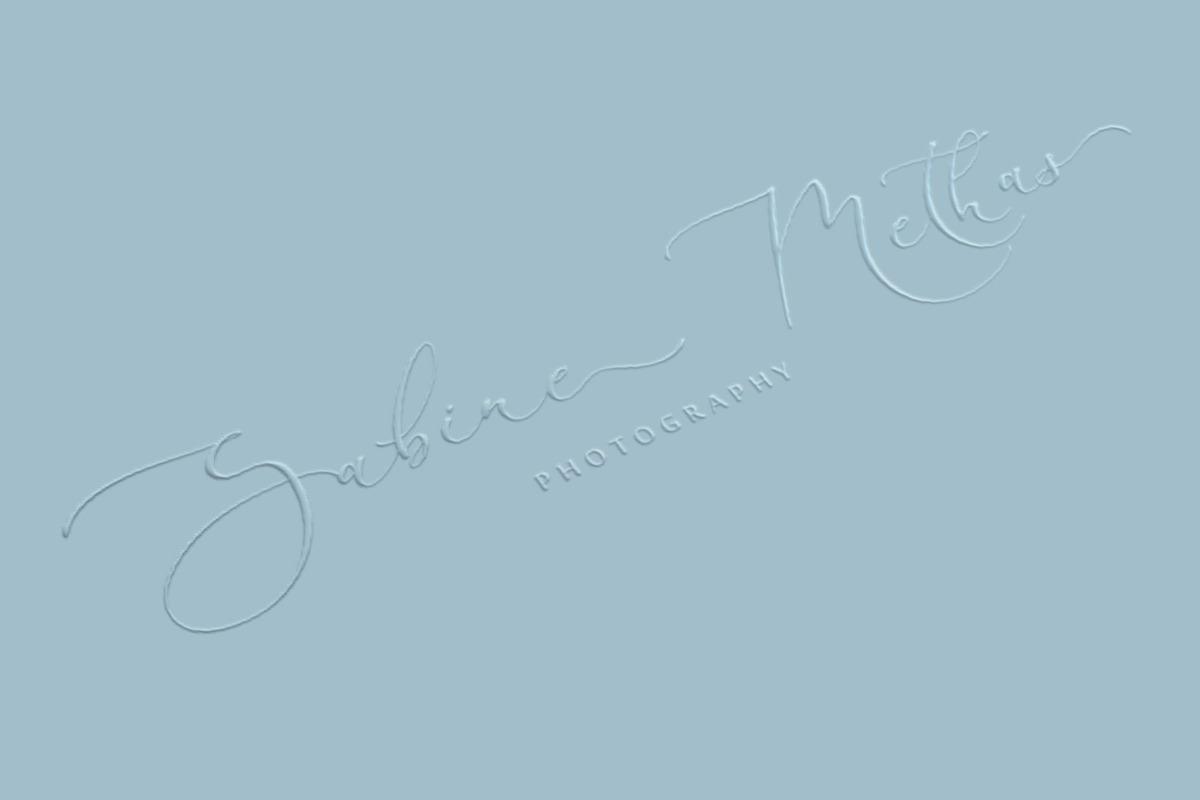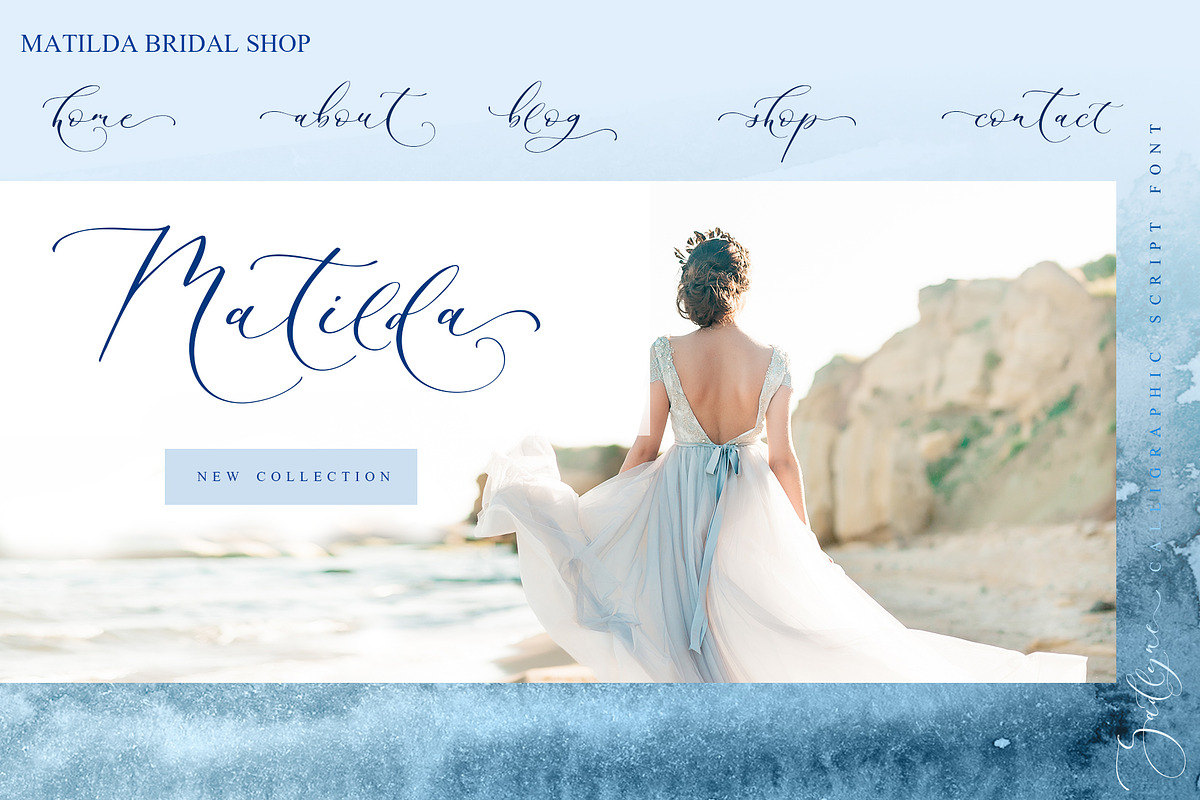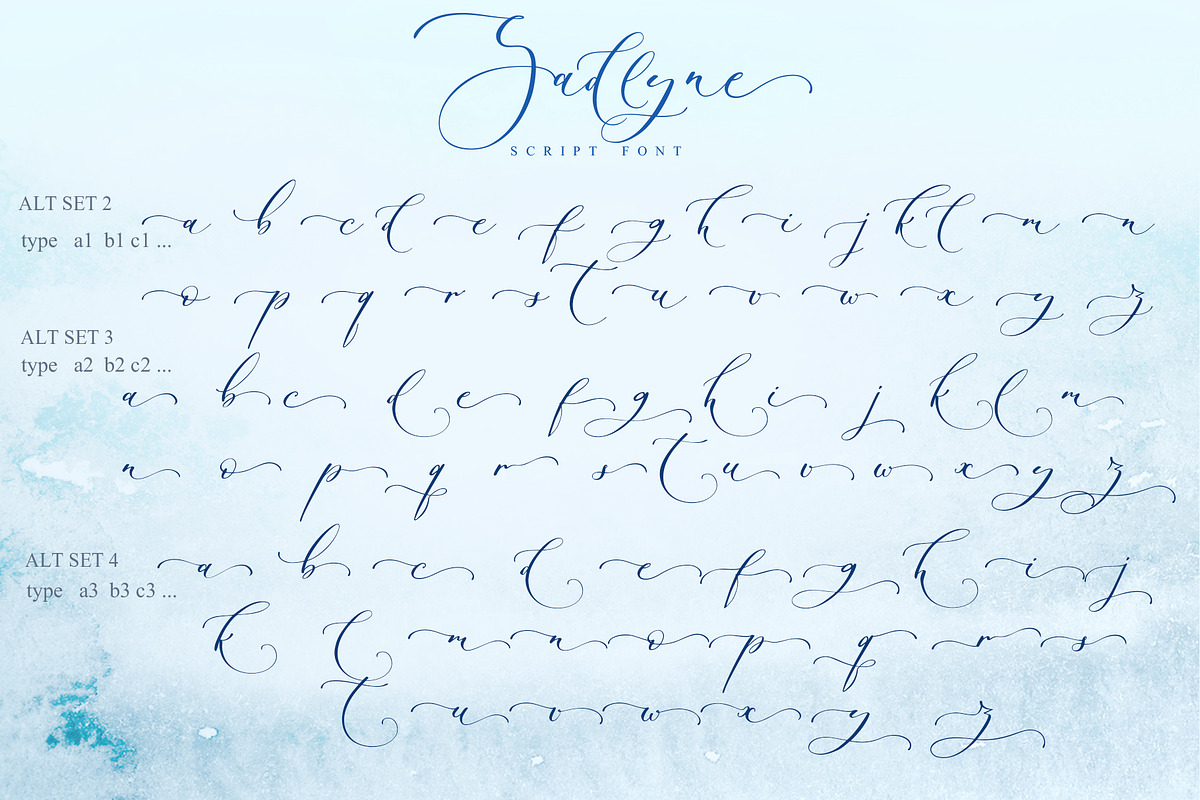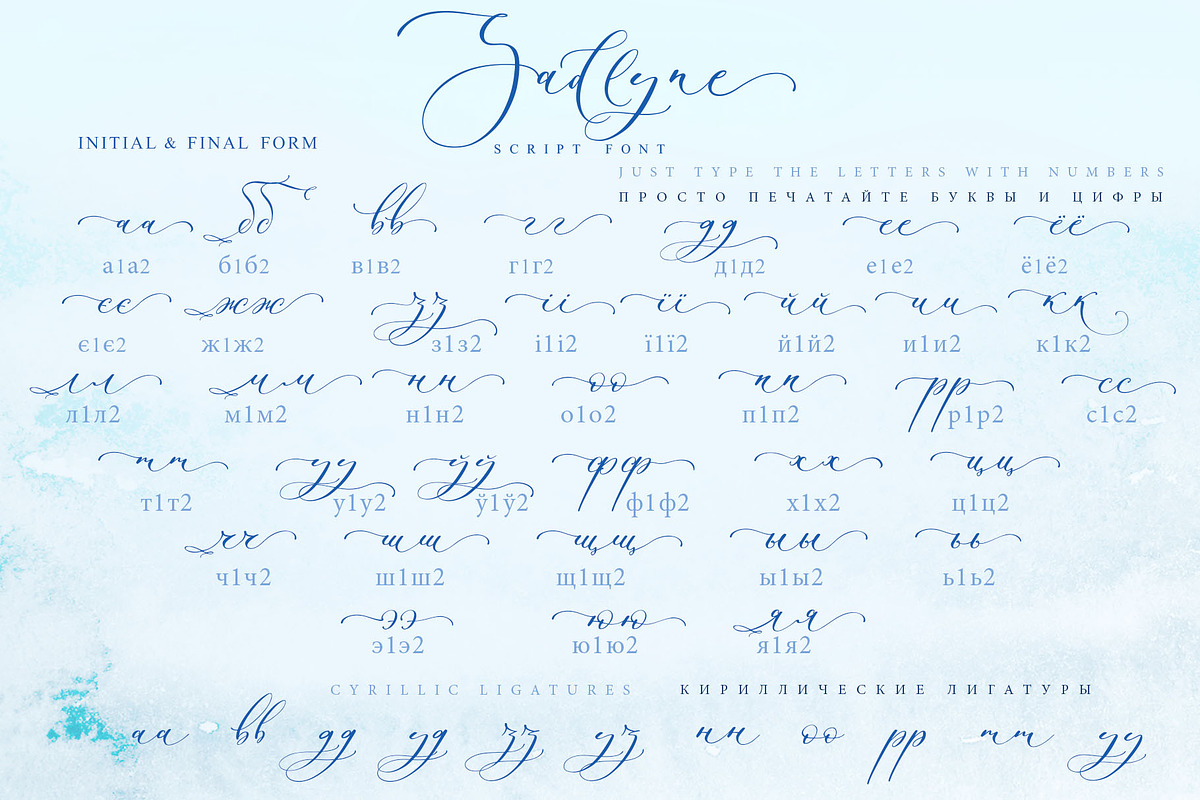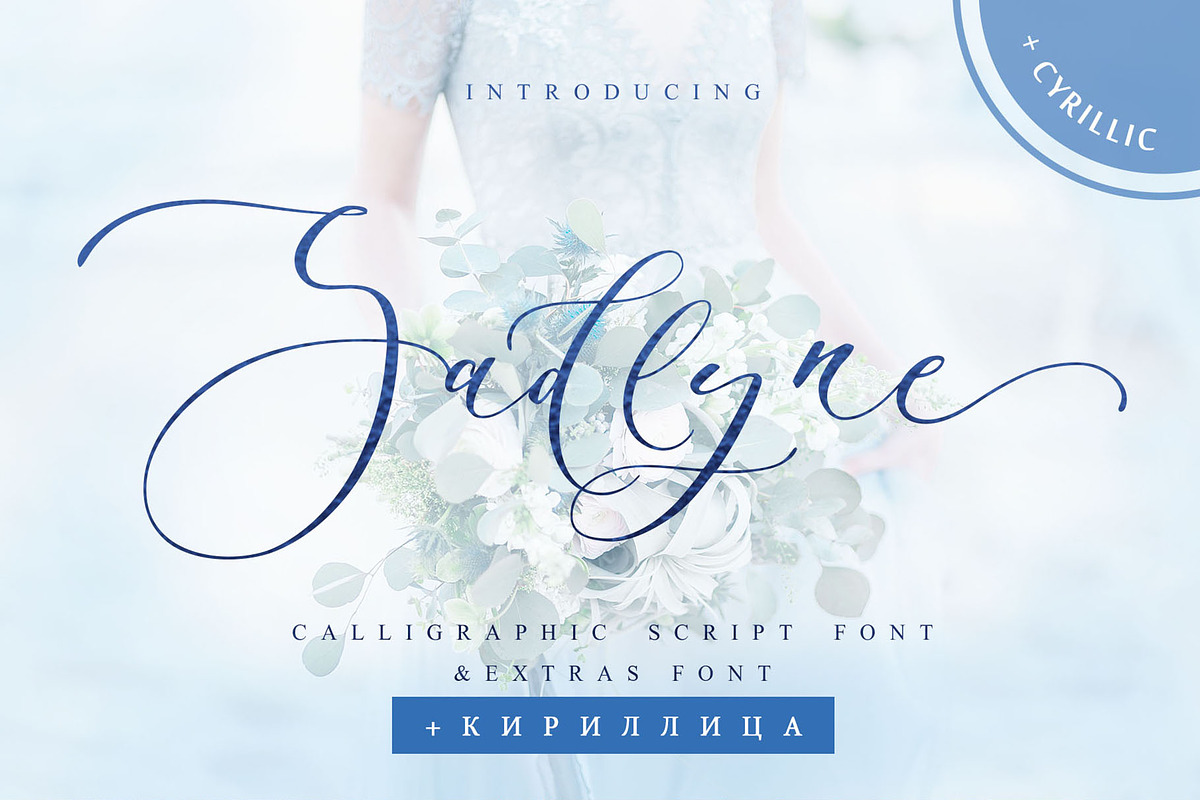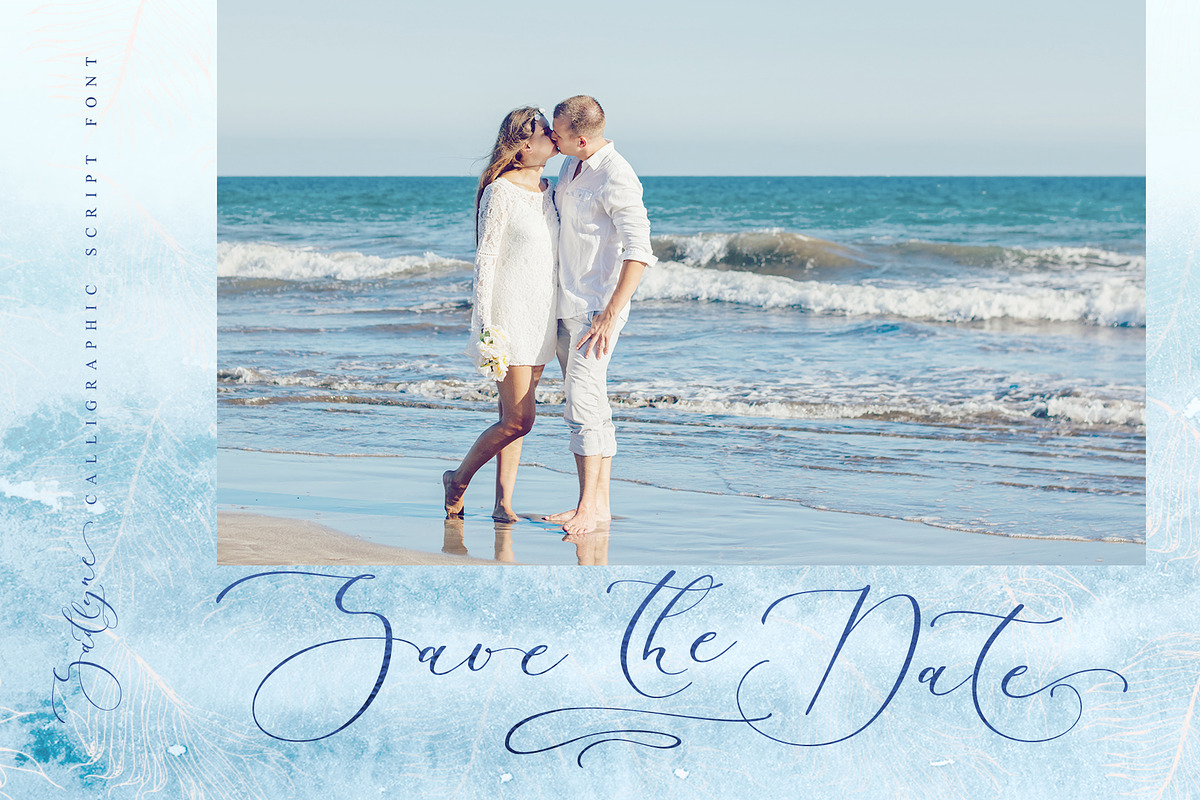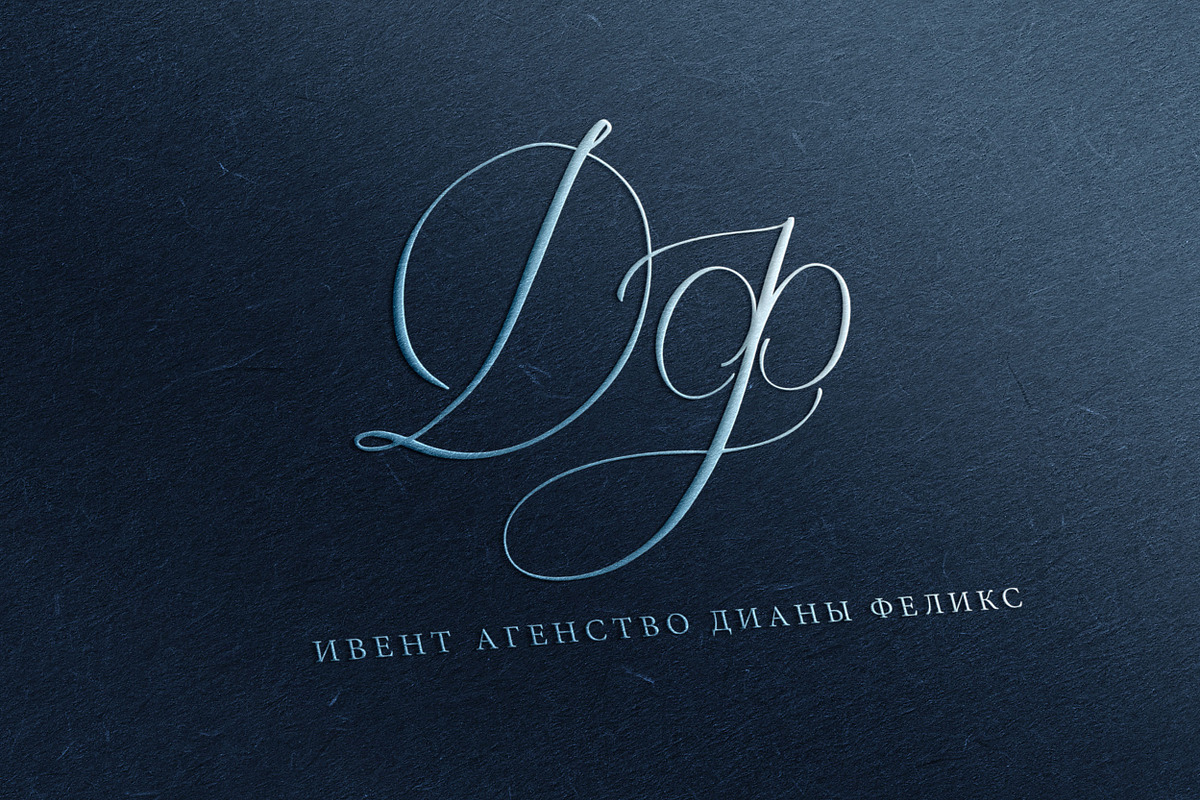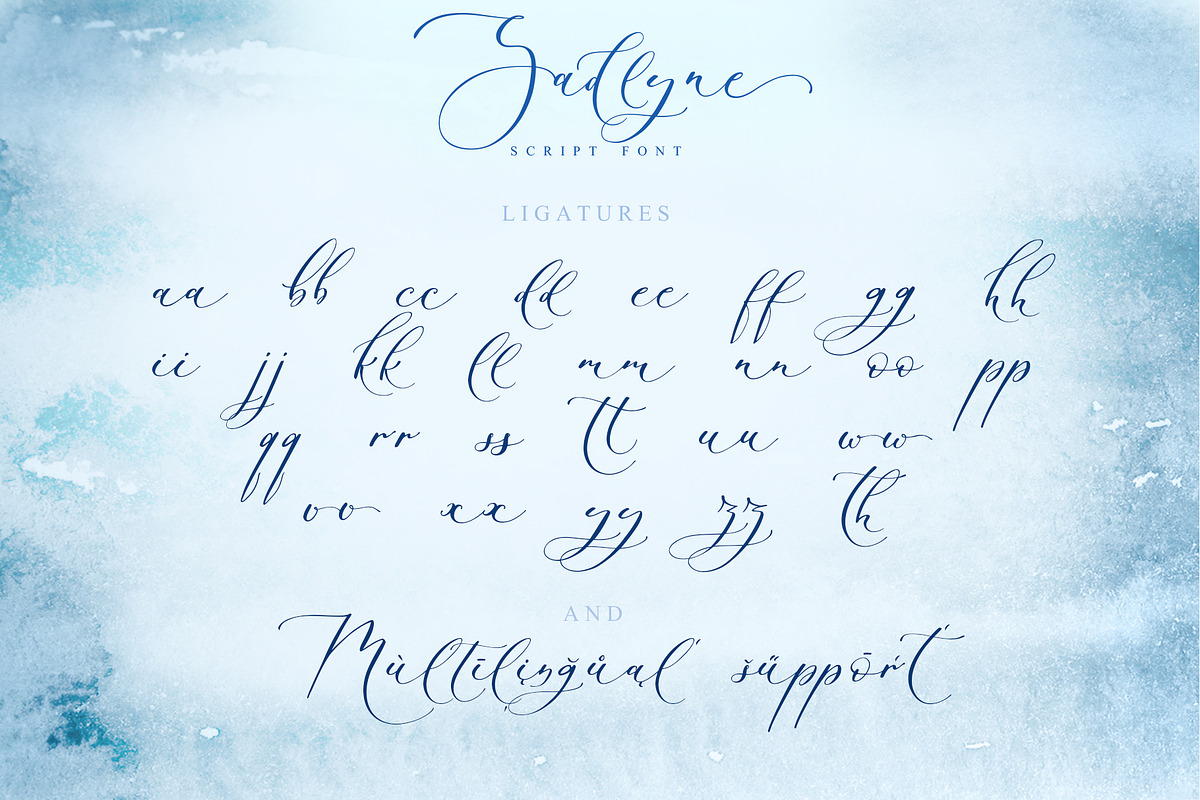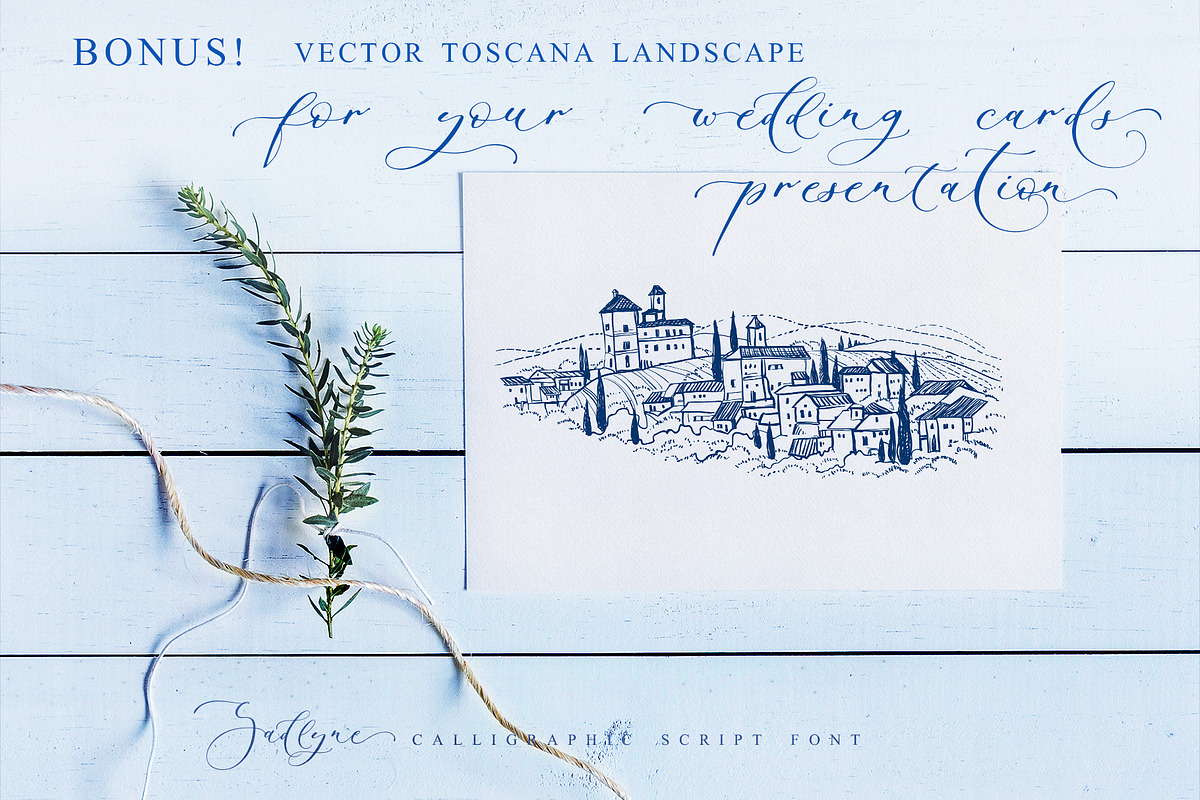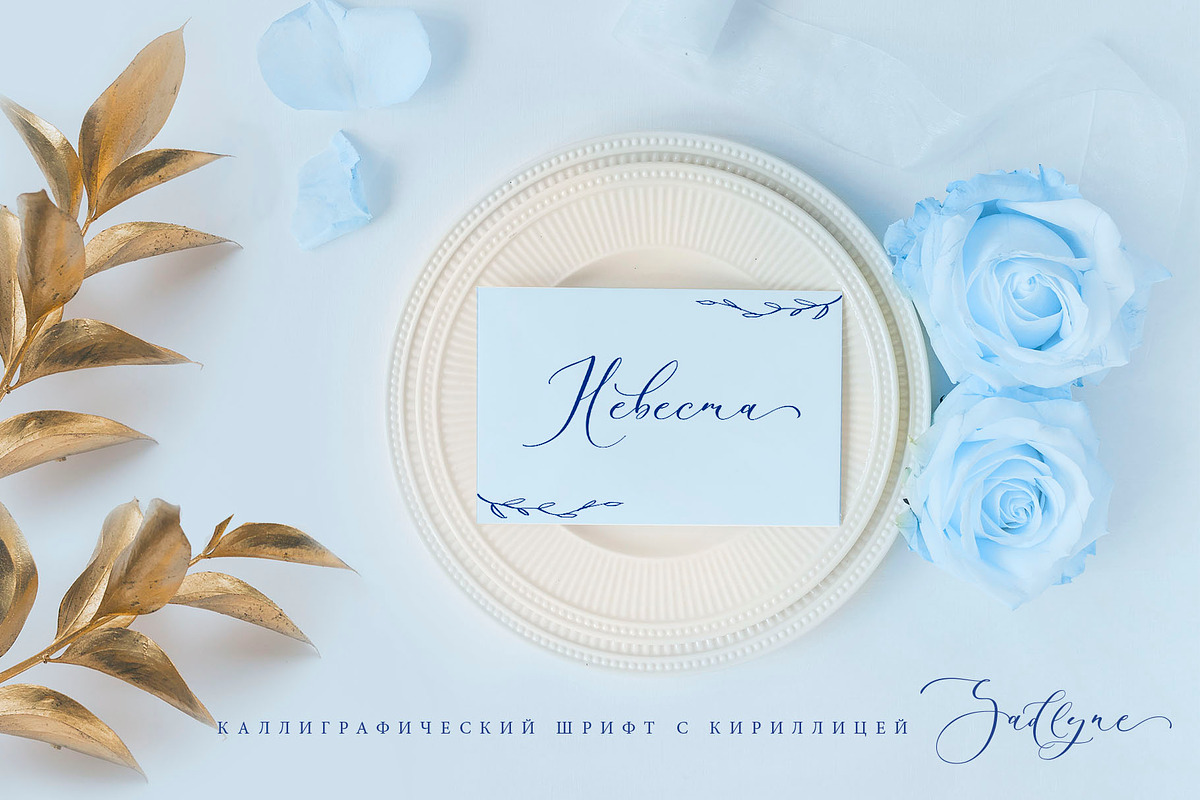
Sadlyne Wedding font + Cyrillic
I'm happy to present to you my new wedding calligraphic handwritten script font Sadlyne. It's the best option for your wedding stationery and wedding monograms!
Sadlyne is an elegant, feminine and graceful calligraphic handwritten script font, as well as a Symbols font with 36 lovely hand-drawn flourishes and illustrations and BONUS! Hand Drawn vector Toscana landscape is for your wedding presentation!
Sadlyne script font contains the Cyrillic glyphs too.
Sadlyne script is perfect for branding, logos, wedding stationery, social media, packaging, and other projects that require an elegant touch.
Sadlyne script contains a full set of uppercase letters and 5 full sets of lowercase letters, (standard, alternative, and initial, final form and flourish form). To make a needed form just type a letter with a number (such as a1, b1, c1...) and 27 ligatures - which can be used to create a handwritten calligraphy look.
The Cyrillic part of the font contains the uppercase letters and 3 full sets of lowercase letters, (standard, initial and final form). To make a needed form just type a letter with a number such as a1, б1, в1... After that select the word and apply the Open Type Features in programmes such as Adobe Illustrator, Photoshop, and others) Also Cyrillic part of the font contains 12 Cyrillic ligatures. Sadlyne Symbols is a font with over 36 hand-drawn elements, illustrations and swashes that can help you to make your design unique and matchless. Combine and merge swashes and illustrations to create your own designs and make borders, frames, dividers, logos, and more (just use A-Z and a-z keys in the included Sadlyne Symbols font). A different symbol is assigned to each uppercase or lowercase standard character, so you do not need graphics software, just type the letter you need.
Multilingual Support for 31 languages: Latin glyphs for Afrikaans, Albanian, Basque, Bosnian, Catalan, Danish, Dutch, English, Estonian, Faroese, Filipino, Finnish, French, Galician, Indonesian, Irish, Italian, Malay, Norwegian Bokmål, Portuguese, Slovenian, Spanish, Swahili, Swedish, Turkish, Welsh, Zulu.
And Cyrillic glyphs support for Russian, Belorussian, Bulgarian, and Ukrainian languages. (To check up if font supports more Cyrillic languages, simply type text information into the text box below and see if all characters you need are there.)